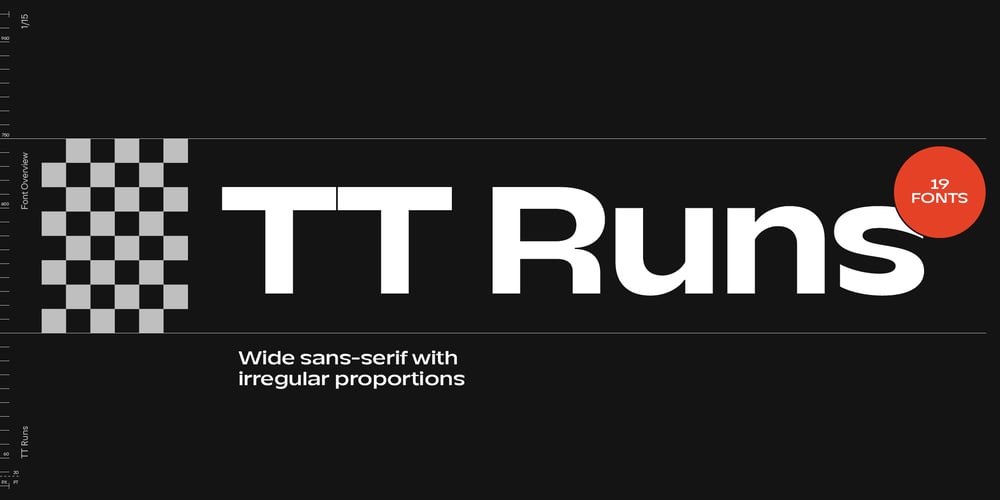
TT Runs Font Family was designed by Antonina Zhulkova, Marina Khodak, Eugene Tantsurin, TypeType Team and published by TypeType. TT Runs contains 19 styles and family package options. TT Runs useful links:Specimen PDF | Graphic presentation | Customization optionsTT Runs Version 2.0—an Unusual Wide-Proportioned Sans Serif! An update that expands the font’s capabilities.TT Runs is a font designed for the sports industry. Before starting the development, we researched the identities of various Olympic venues and analyzed current sports brands. We put in maximum effort to design a unique yet elegant modern font well-suited for the sports sector.TT Runs has wide and unusual proportions that are different from traditional ones. It is because of the reversed contrast, which refers to the distinction between the upper and lower parts of letters. The uppercase letters have distinctive inverted proportions, particularly noticeable in characters like K, C, S, and R. This design choice gives the font an original personality and makes the letters look stylish and suitable for both athletic and casual sportswear.While updating the font, we kept its distinctive characteristics and preserved the graphical look of the majority of the characters. However, we thoroughly redesigned the outlines and italic font styles and updated the font’s technical aspects entirely.As a result, TT Runs has become more convenient to use, and its range of applications has significantly broadened.- More projects and countries!The set of each font style has expanded from 791 to 917 characters. We added new languages and characters of the expanded Latin and Cyrillic writing systems.- Perfect italics!The new italic font styles are flawless from both graphical and technical points of view.The updated variable font.We have united the roman and italic font styles. You can now change the font on the axes of slope and weight, choosing the suitable values.- The new set of OpenType features!We added the updated numerators with currency symbols, numbers in filled circles, and localization features for the Dutch, Catalan, Turkish, Serbian, Bashkir, Chuvash, Bulgarian, and Romanian languages.TT Runs is an expressive font.It looks aesthetically pleasing on both athletic and casual clothing and is well-suited for printing on any material.Due to its proportions, the font is an ideal choice for headings, offering excellent readability and an elegant appearance in bigger blocks of text.Created with the sports industry in mind, this font brings a touch of style to any modern project.FOLLOW US:Instagram | Facebook | WebsiteTT Runs OpenType features: aalt, ccmp, locl, subs, sinf, sups, numr, dnom, frac, ordn, tnum, onum, lnum, pnum, case, dlig, liga, salt, ss01, ss02, ss03, ss04, ss05, ss06, ss07, ss08, ss09, ss10, ss11, ss12, calt.TT Runs language support: English, Albanian, Basque, Catalan, Croatian, Czech, Danish, Dutch, Estonian, Finnish, French, German, Hungarian, Icelandic, Irish, Italian, Latvian, Lithuanian, Luxembourgish, Maltese, Moldavian (lat), Montenegrin (lat), Norwegian, Polish, Portuguese, Romanian, Serbian (lat), Slovak, Slovenian, Spanish, Swedish, Swiss German, Valencian, Azerbaijani, Kazakh (lat), Turkish, Uzbek (lat), Acehnese, Banjar, Betawi, Bislama, Boholano, Cebuano, Chamorro, Fijian, Filipino, Hiri Motu, Ilocano, Indonesian, Javanese, Khasi, Malay, Marshallese, Minangkabau, Nauruan, Nias, Palauan, Rohingya, Salar, Samoan, Sasak, Sundanese, Tagalog, Tahitian, Tetum, Tok Pisin, Tongan, Uyghur, Afar, Asu, Aymara, Bemba, Bena, Chichewa, Chiga, Embu, Gikuyu, Gusii, Jola-Fonyi, Kabuverdianu, Kalenjin, Kamba, Kikuyu, Kinyarwanda, Kirundi, Kongo, Luba-Kasai, Luganda, Luo, Luyia, Machame, Makhuwa-Meetto, Makonde, Malagasy, Mauritian Creole, Meru, Morisyen, Ndebele, Nyankole, Oromo, Rombo, Rundi, Rwa, Samburu, Sango, Sangu, Sena, Seychellois Creole, Shambala, Shona, Soga, Somali, Sotho, Swahili, Swazi, Taita, Teso, Tsonga, Tswana, Vunjo, Wolof, Xhosa, Zulu, Ganda, Maori, Alsatian, Aragonese, Arumanian, Asturian, Belarusian (lat), Bosnian (lat), Breton, Bulgarian (lat), Colognian, Cornish, Corsican, Esperanto, Faroese, Frisian, Friulian, Gaelic, Gagauz (lat), Galician, Interlingua, Judaeo-Spanish, Karaim (lat), Kashubian, Ladin, Leonese, Manx, Occitan, Rheto-Romance, Romansh, Scots, Silesian, Sorbian, Vastese, Volapük, Võro, Walloon, Walser, Welsh, Karakalpak (lat), Kurdish (lat), Talysh (lat), Tsakhur (Azerbaijan), Turkmen (lat), Zaza, Aleut (lat), Cree, Haitian Creole, Hawaiian, Innu-aimun, Lakota, Karachay-Balkar (lat), Karelian, Livvi-Karelian, Ludic, Tatar, Vepsian, Guarani, Nahuatl, Quechua, Russian, Belarusian (cyr), Bosnian (cyr), Bulgarian (cyr), Macedonian, Serbian (cyr), Ukrainian, Gagauz (cyr), Moldavian (cyr), Kazakh (cyr), Kirghiz, Tadzhik, Turkmen (cyr), Uzbek (cyr), Azerbaijan, Lezgian, Abazin, Agul, Archi, Avar, Dargwa, Ingush, Kabardian, Kabardino-Cherkess, Karachay-Balkar (cyr), Khvarshi, Kumyk, Lak, Nogai, Rutul, Tabasaran, Tsakhu